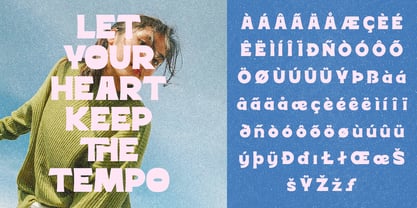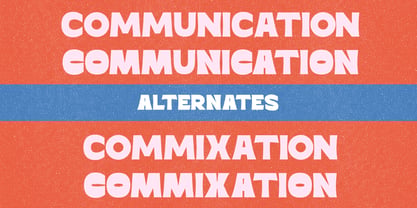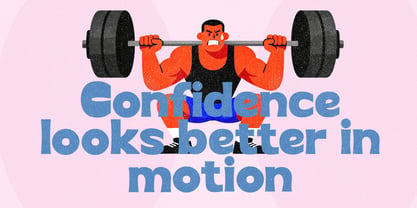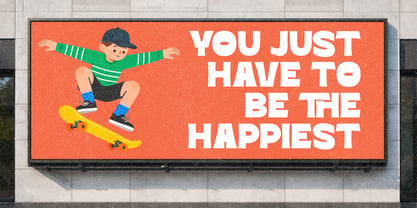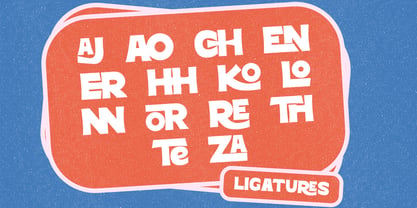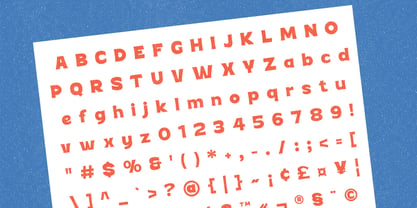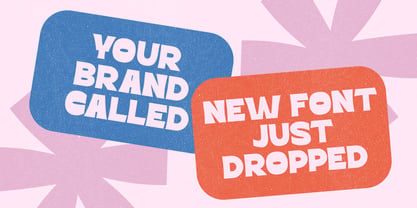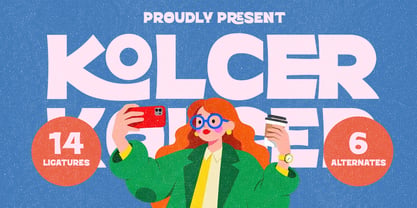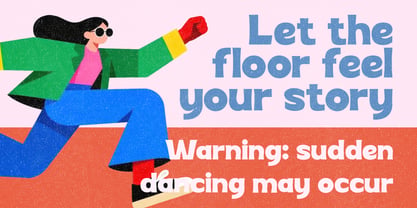
Kolcer
by Monolimes
The Kolcer Font Family was designed by Brainy Javanika Putra and published by Monolimes. Kolcer contains 1 styles. More about this family
Kolcer is a bold and energetic display typeface designed to capture attention instantly. With its strong letterforms, playful curves, and confident structure, Kolcer delivers a powerful visual impact while maintaining a friendly and approachable personality. Built for high-visibility design, Kolcer features thick strokes, dynamic proportions, and a modern retro feel that makes headlines pop. Its bold presence ensures excellent readability from a distance, making it perfect for posters, billboards, children’s themes, street-style branding, packaging, and eye-catching social media graphics. Kolcer brings a sense of movement, fun, and optimism—ideal for brands that want to feel expressive, youthful, and memorable. Perfect for: Posters & billboards Bold headlines & display typography Kids and playful branding Streetwear & lifestyle designs Packaging & promotional materials Kolcer isn’t just a font — it’s a statement of bold confidence and joyful energy.
Designers: Brainy Javanika Putra
Foundry: Monolimes